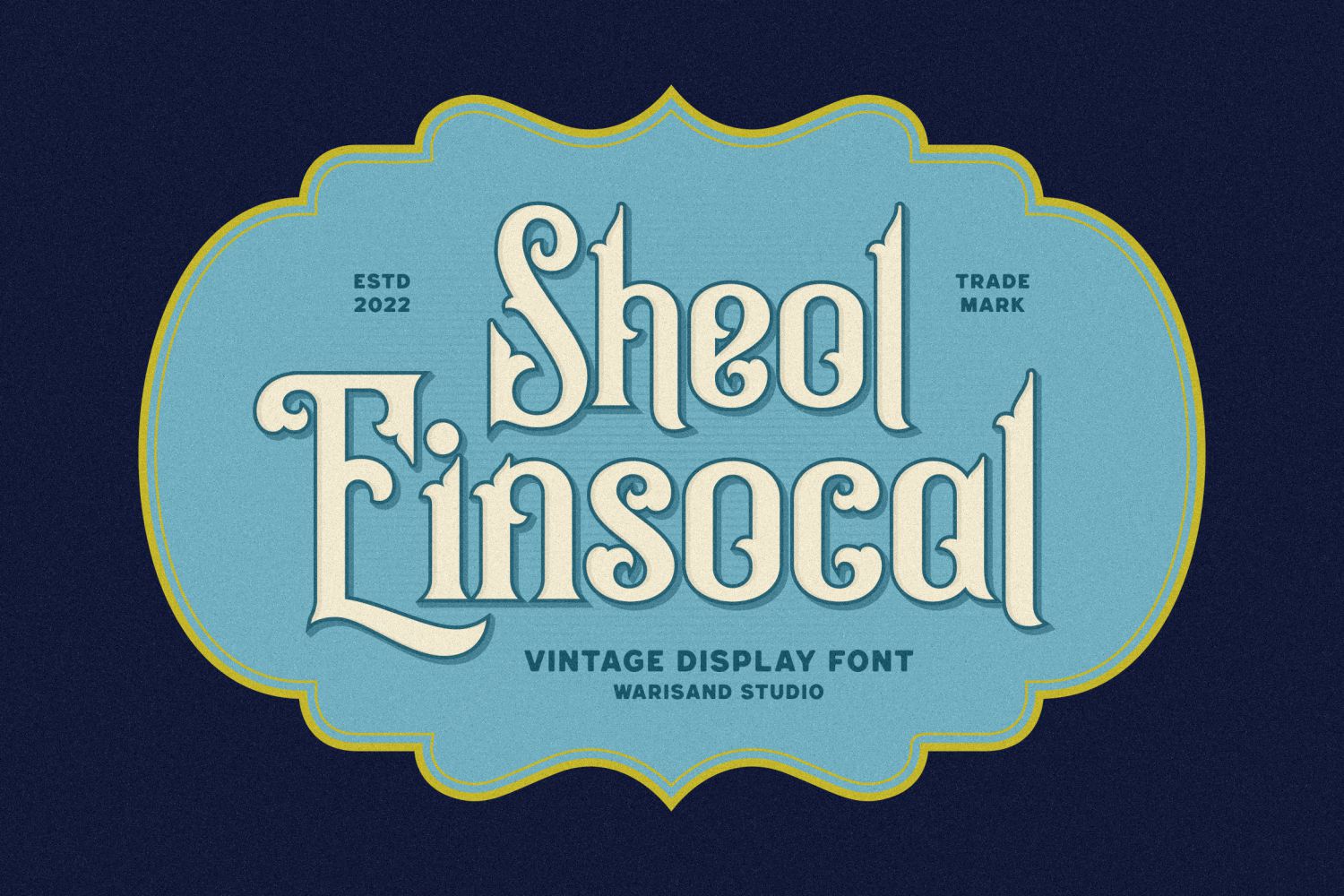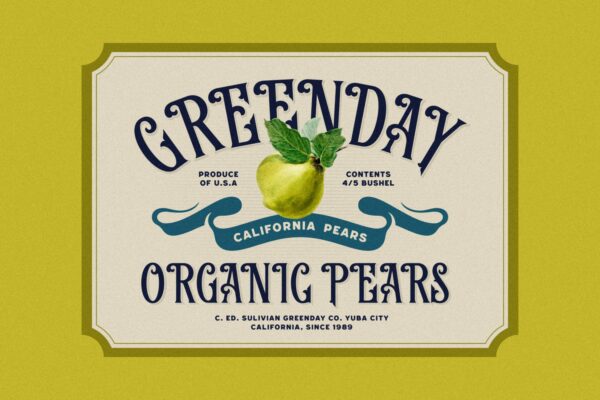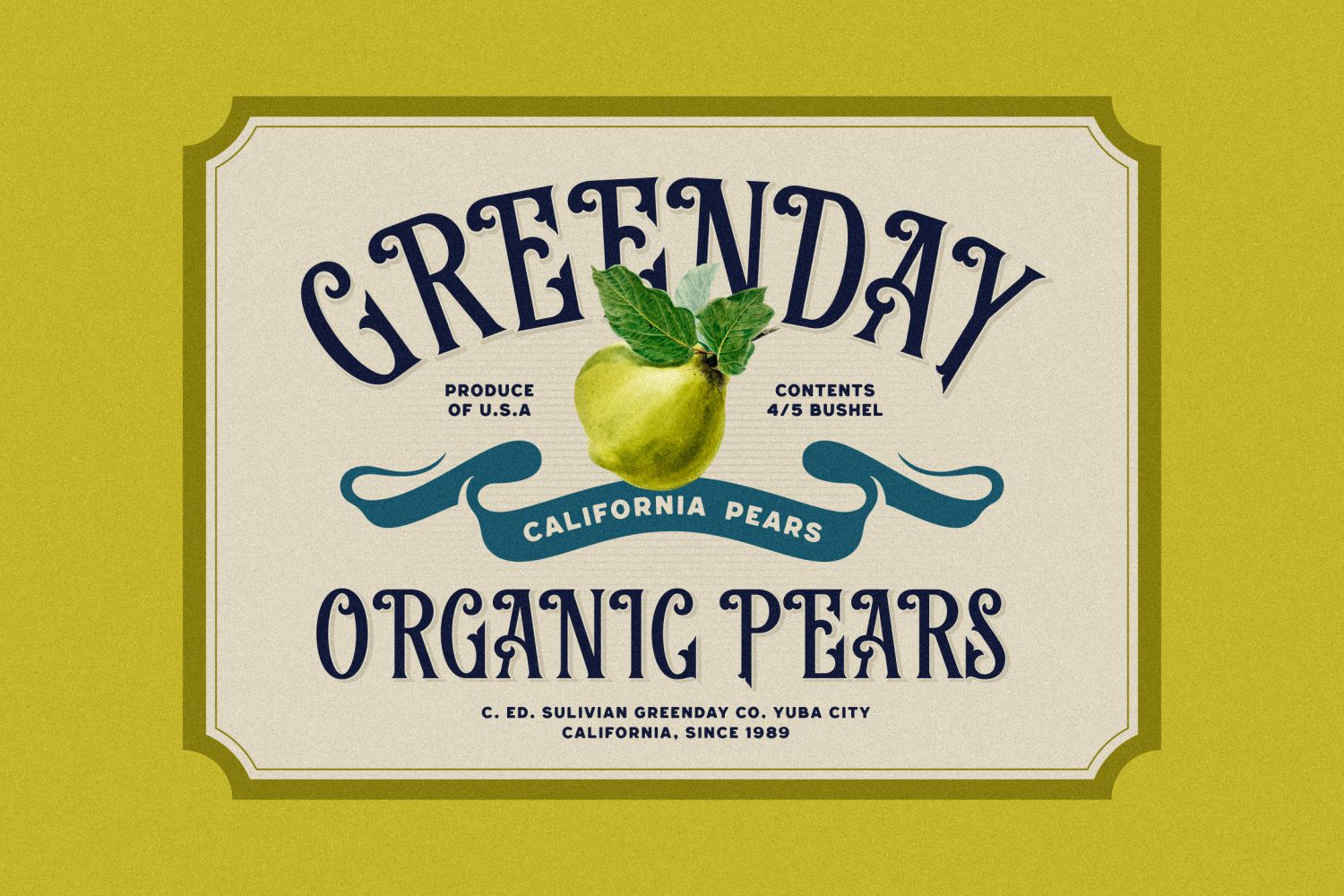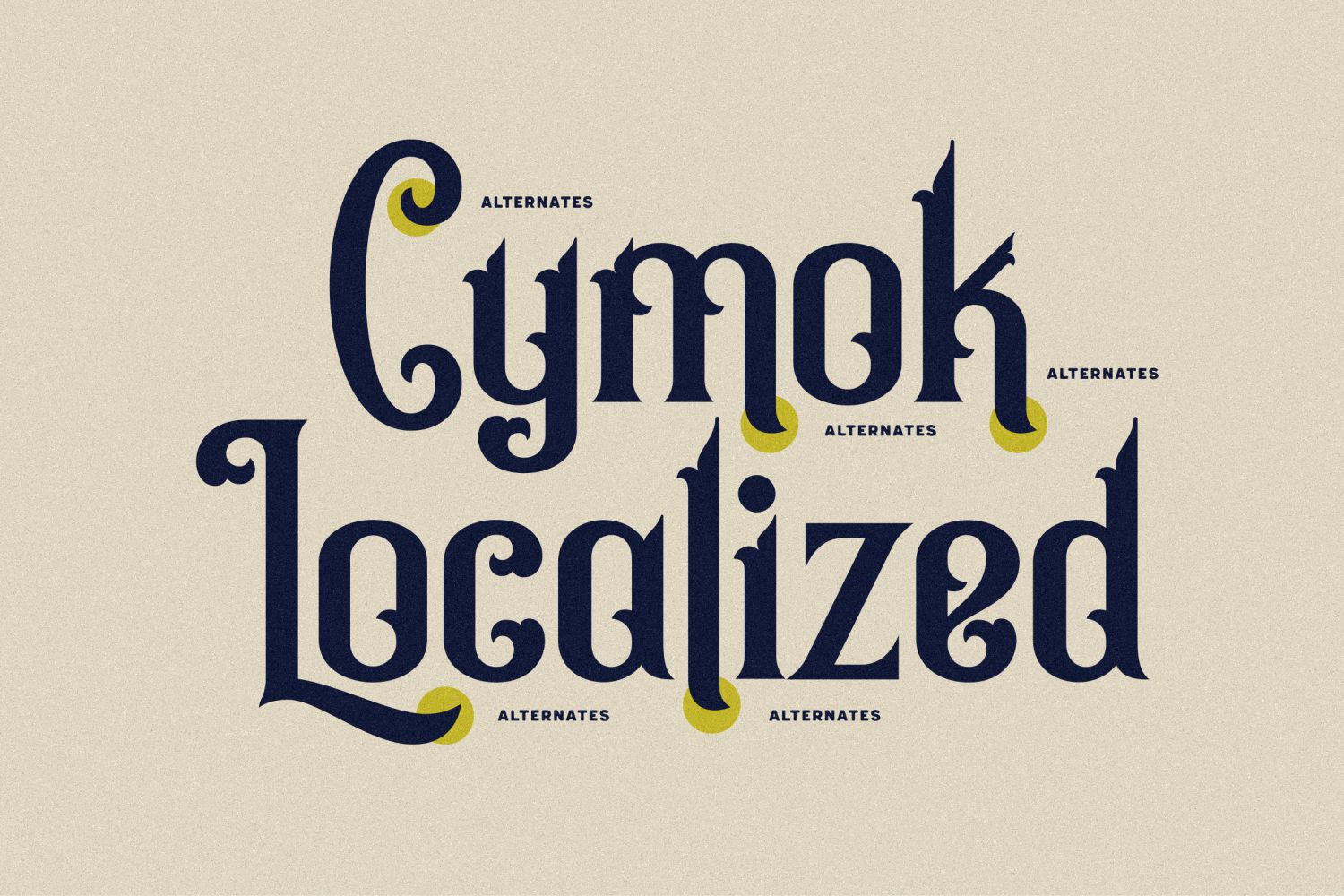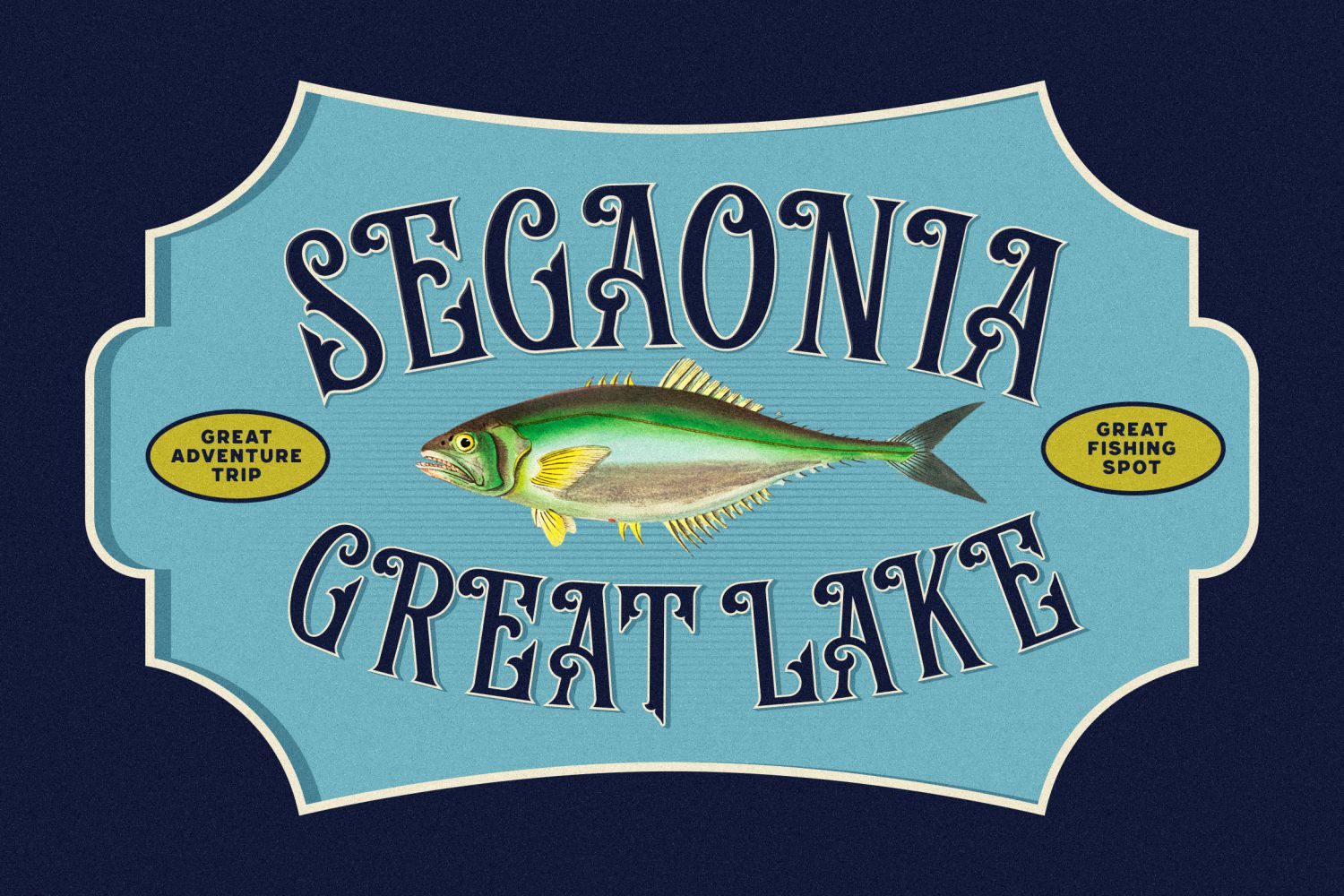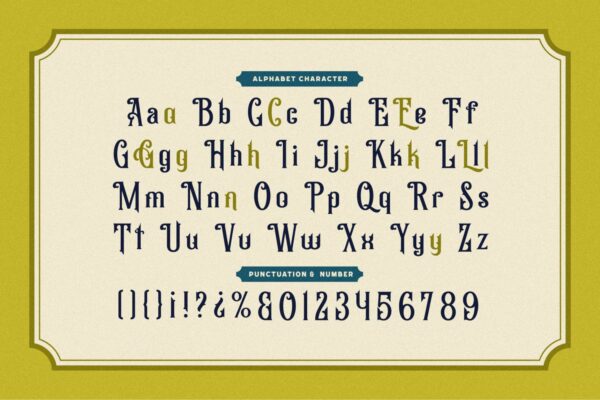
Sheol Einsocal is a bold and artistic vintage display font that captures the charm of retro signage and classic label aesthetics. With its unique blend of sharp angles, stylish alternates, and expressive curves, this typeface delivers a strong visual identity that stands out in both traditional and modern design. Inspired by antique product packaging and travel ephemera, it evokes a sense of nostalgia while maintaining clarity and character.
Packed with uppercase and lowercase letters, numerals, punctuation, and a broad selection of alternates, Sheol Einsocal offers versatility for designers working on labels, branding, logotypes, editorial titles, and merchandise. Whether you’re crafting a fishing label, organic food packaging, or a stylish vintage poster, this font is your go-to for bold and decorative typographic impact.